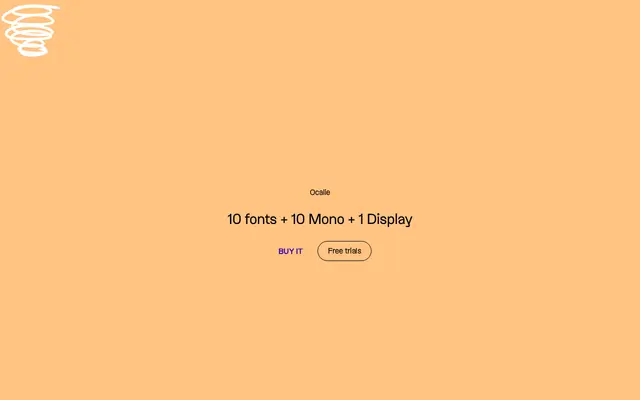
Ocalie
A proportional sans evolved from the monospaced Hublot, designed by Sandrine Nugue and issued in 21 cuts across three subfamilies including a display and a mono variant.
Developed from Hublot, a monospaced typeface originally created for the art centre La Fenêtre, Ocalie drops the fixed-width constraint in favour of proportional spacing while preserving the geometric backbone. The family spans five weights from Thin to Bold with italics across both the text and mono subfamilies, plus a single expressive Display cut. At 420 glyphs and with coverage across roughly 50 Latin-script languages, it sits comfortably in editorial, identity and interface work.
Ocalie is a proportional sans-serif evolved from Hublot, a monospaced predecessor, retaining geometric rigour while introducing organic movement; its clean, mechanical letterforms with subtle sensitivity place it firmly in geometric sans territory.